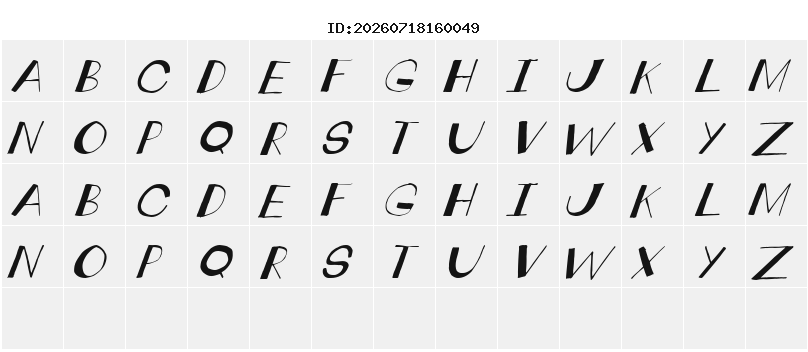
• Font Name: crankdeal tilt
• Designer: andy greer and max infeld
• Description: bubbletea is fun and tilt is fun too
About crankdeal tilt.ttf
crankdeal tilt.ttf is a modern, elegant sans-serif font designed for ultimate readability and visual harmony. Perfect for branding, headlines, web design, and print materials.